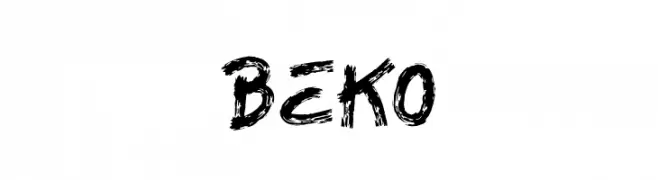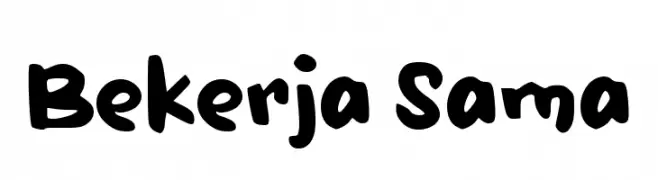
A bold, playful typeface with rounded, bubbly characters.
A playful, hand-drawn font with tall, narrow letters and rounded edges.
A playful handwritten font with a casual and friendly appearance.
A playful, heart-themed decorative font with bold strokes.
A playful, 3D bubble-like font with retro comic book aesthetics.
A playful, casual handwritten font with fluid, connected strokes.
A playful, handwritten font with smooth, flowing lines and a casual style.
A modern, geometric font with tall, narrow characters and uniform stroke width.
A playful, rounded font with smooth strokes and a casual, friendly appearance.
A playful, handwritten font with smooth, rounded edges and a casual style.
A playful and casual script font with smooth, flowing lines and rounded edges.
A playful, handwritten script font with a casual and fluid style.
A bold, hand-drawn font with irregular, expressive strokes.
A decorative font with a rugged, organic texture and irregular edges.
A playful, hand-drawn font with decorative dot-filled characters.
A bold, expressive handwritten font with fluid strokes and dynamic style.
A bold, handwritten font with a playful and energetic style.
A bold, chaotic font with a melting, textured appearance.
A decorative font with leaf and vine motifs, offering a whimsical and organic style.
A bold, playful font with a hand-drawn, friendly appearance.
A bold, decorative font with intricate patterns and a three-dimensional effect.
A bold, playful script font with smooth, flowing characters.
A delicate and elegant script font with flowing, cursive design.
A spooky, jagged font ideal for Halloween and horror themes.
A bold, hand-drawn font with thick strokes and a playful, expressive style.
A bold, flowing script font with elegant, connected letterforms.
A bold, hand-drawn font with an expressive and artistic style.
A charming and elegant script font with a handwritten appearance.
A bold, handwritten font with a playful and dynamic style.
A playful, hand-drawn font with bold, rounded characters and a whimsical style.
A playful, decorative font with sparkling star accents.
A bold, brush-style font with dynamic, hand-painted strokes.
A bold, brush-like font with an expressive, hand-painted style.
A playful, handwritten font with whimsical curls and loops.